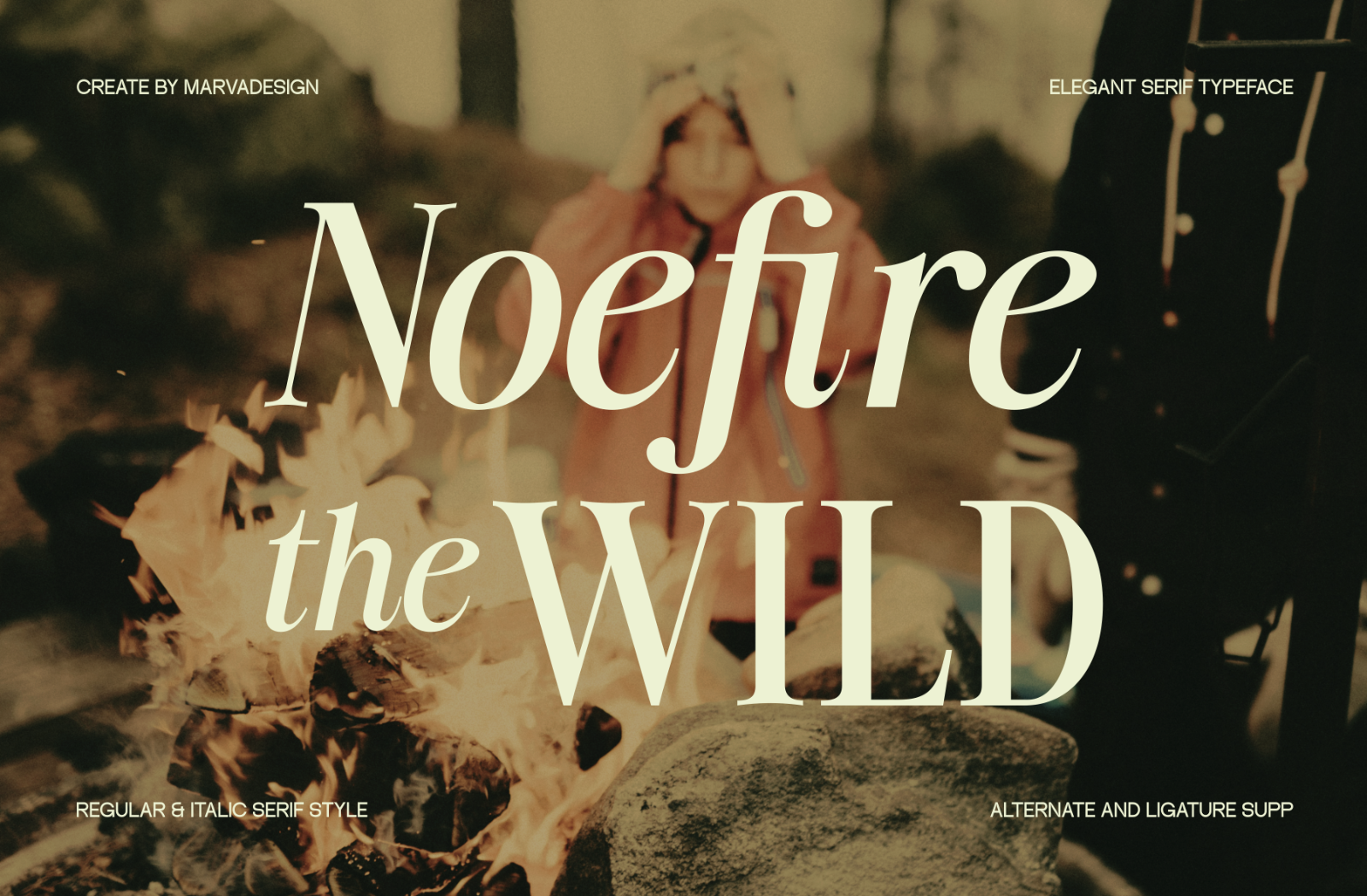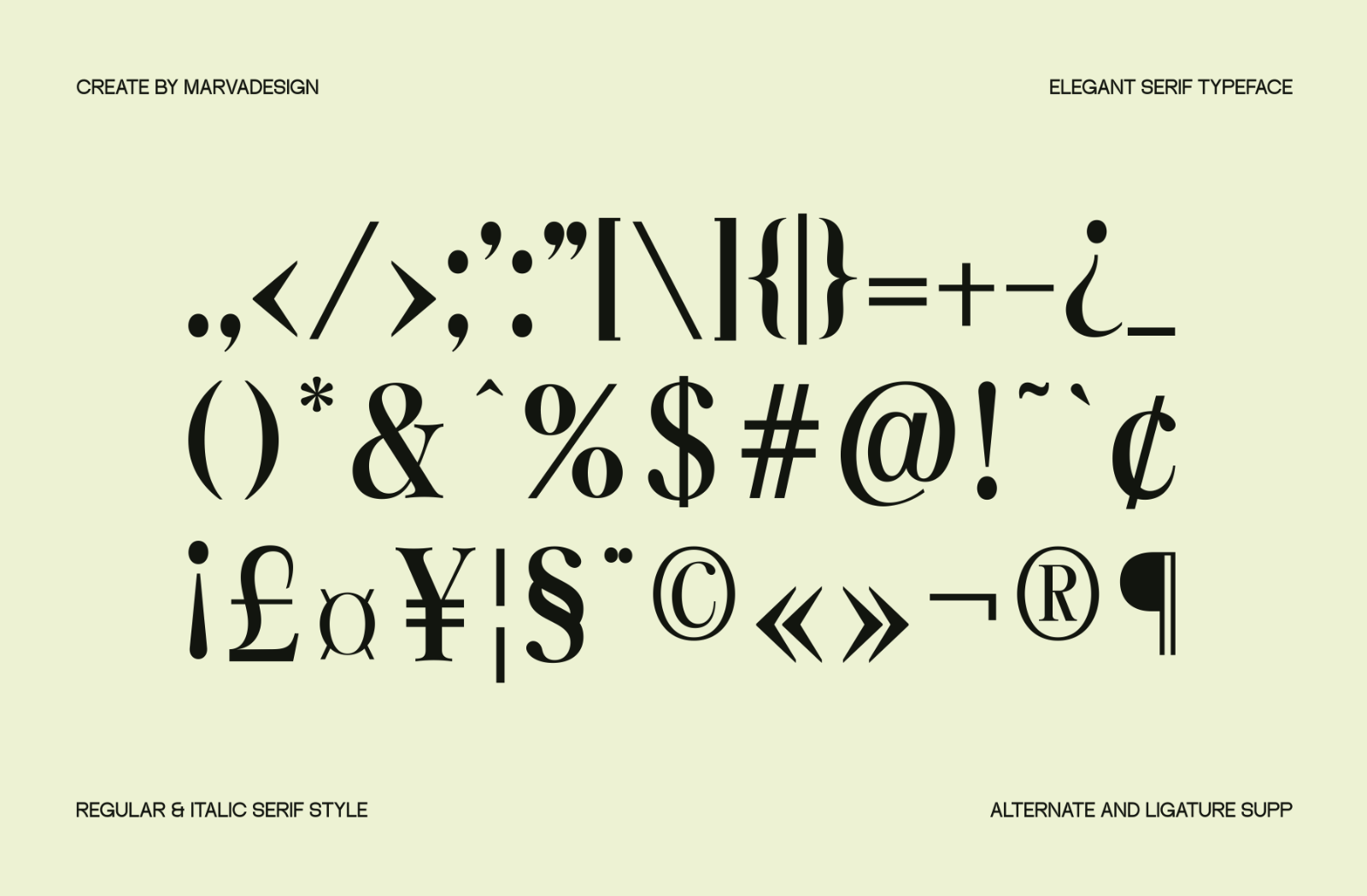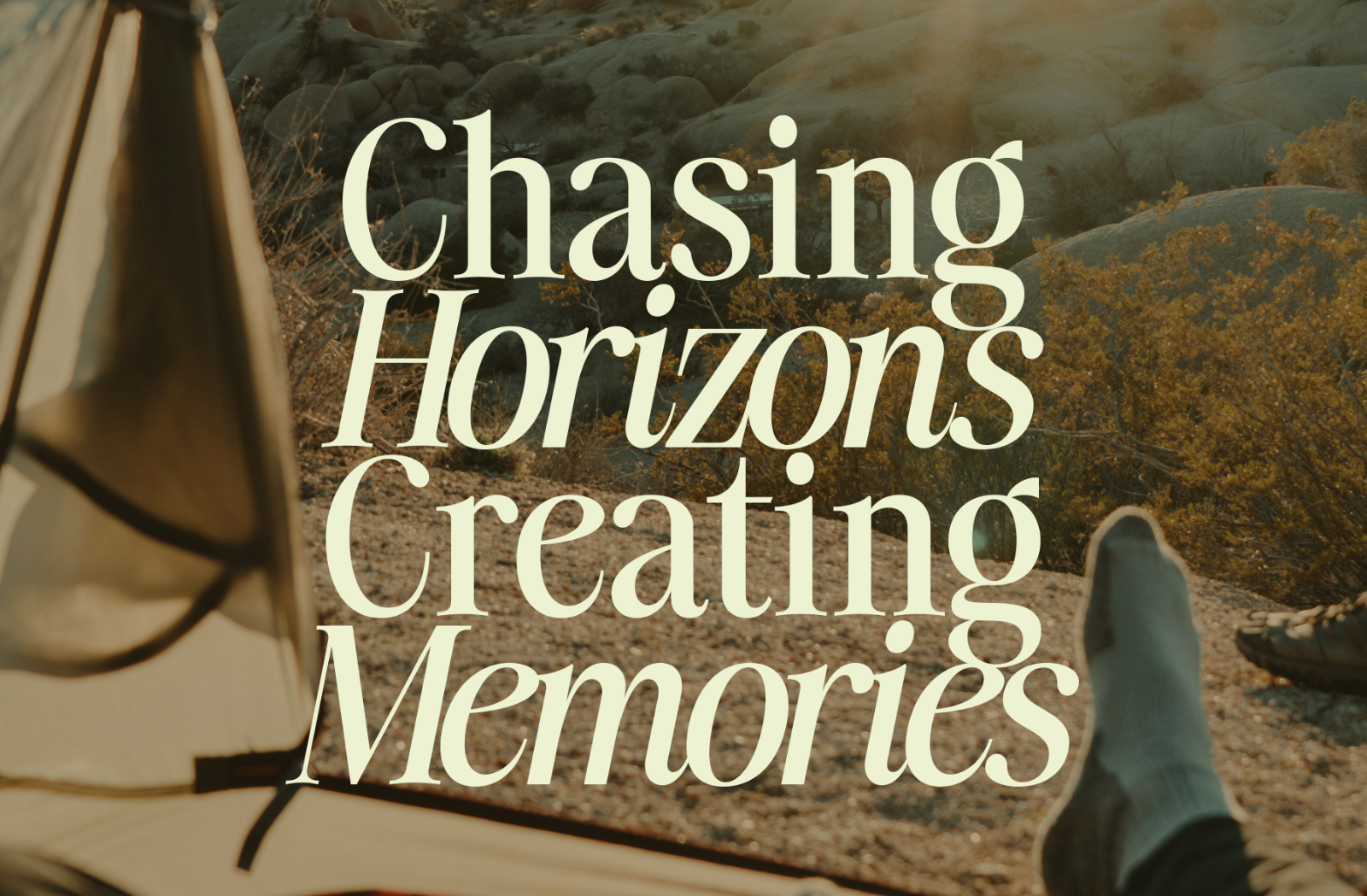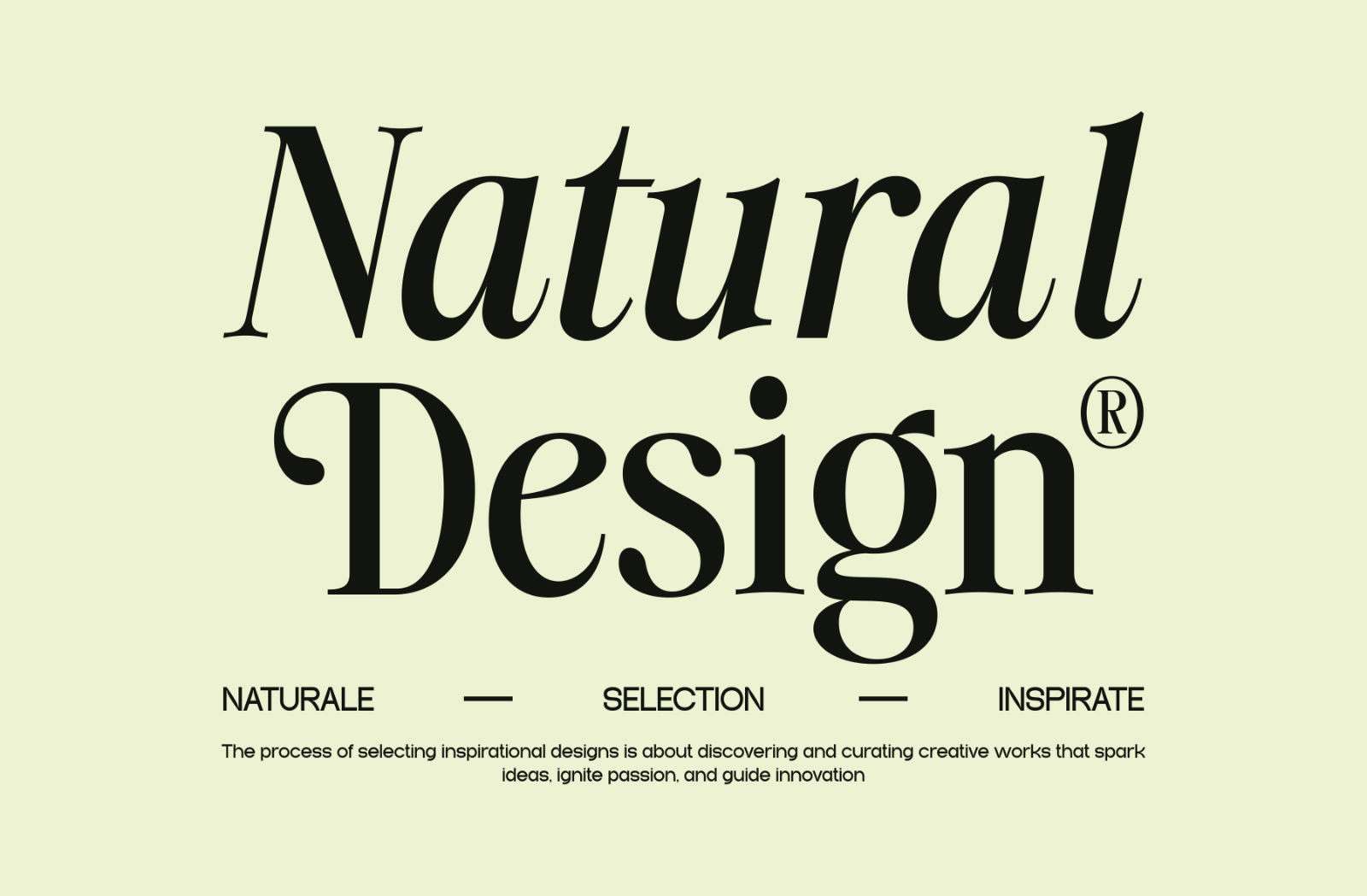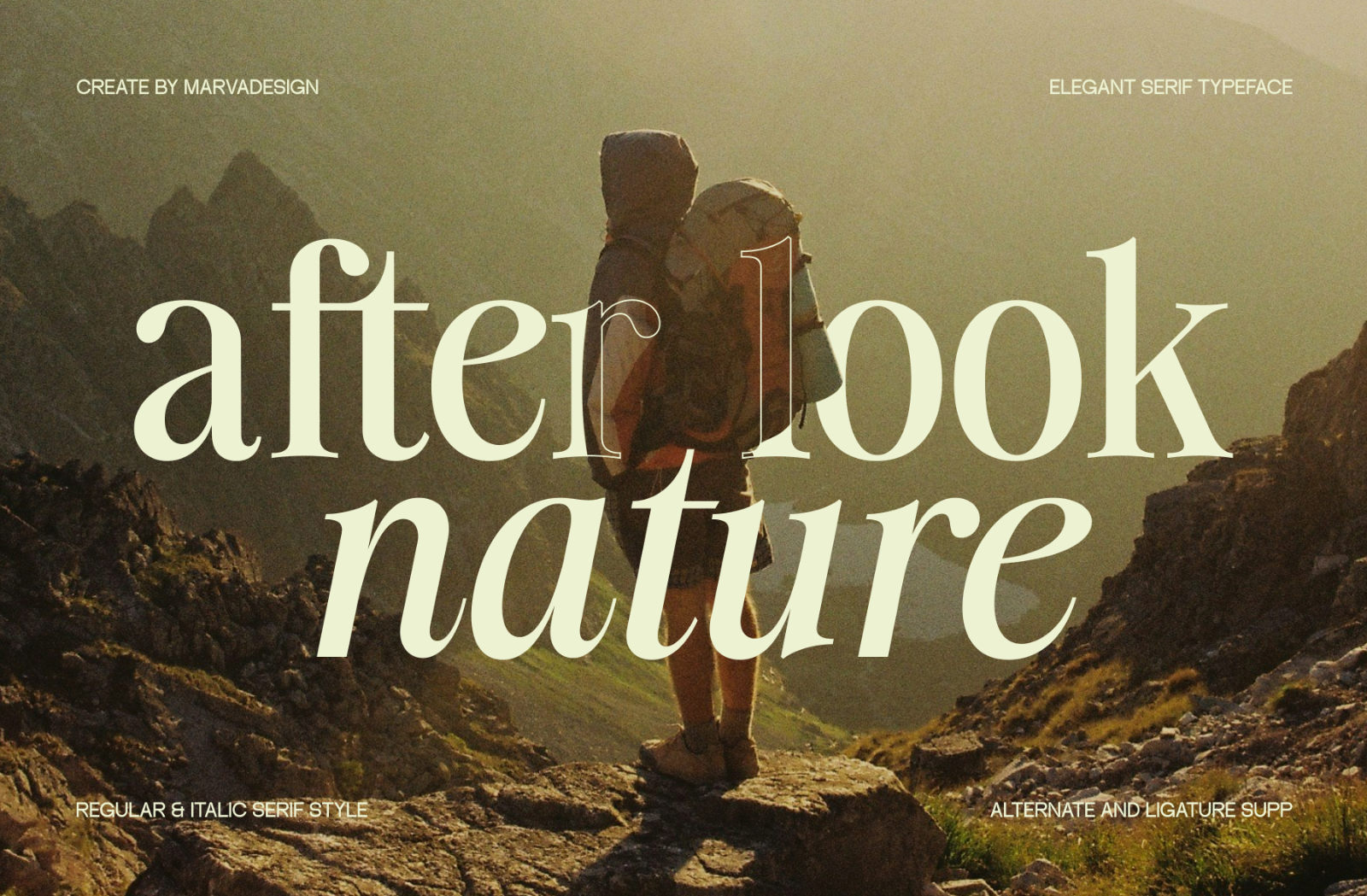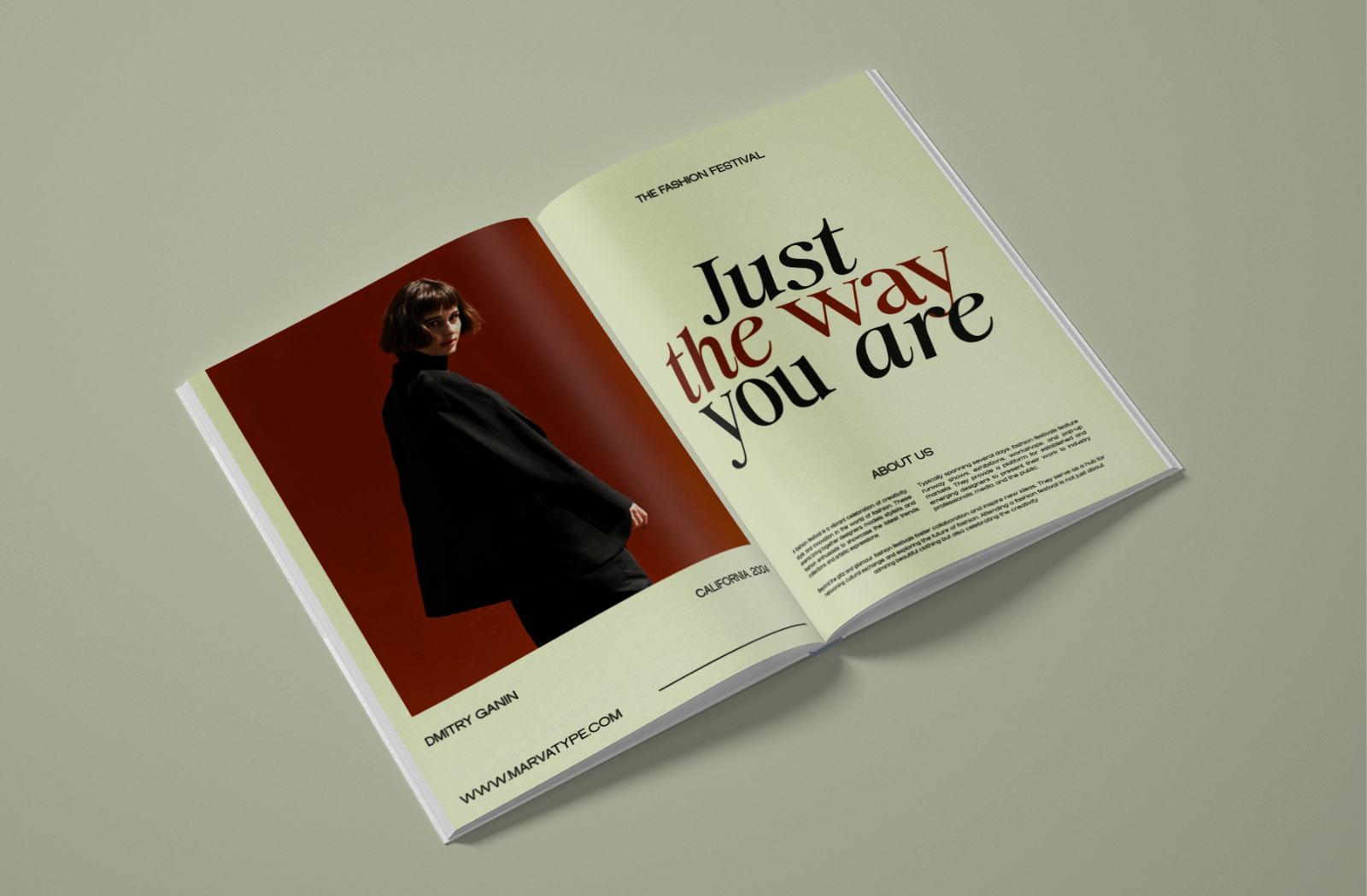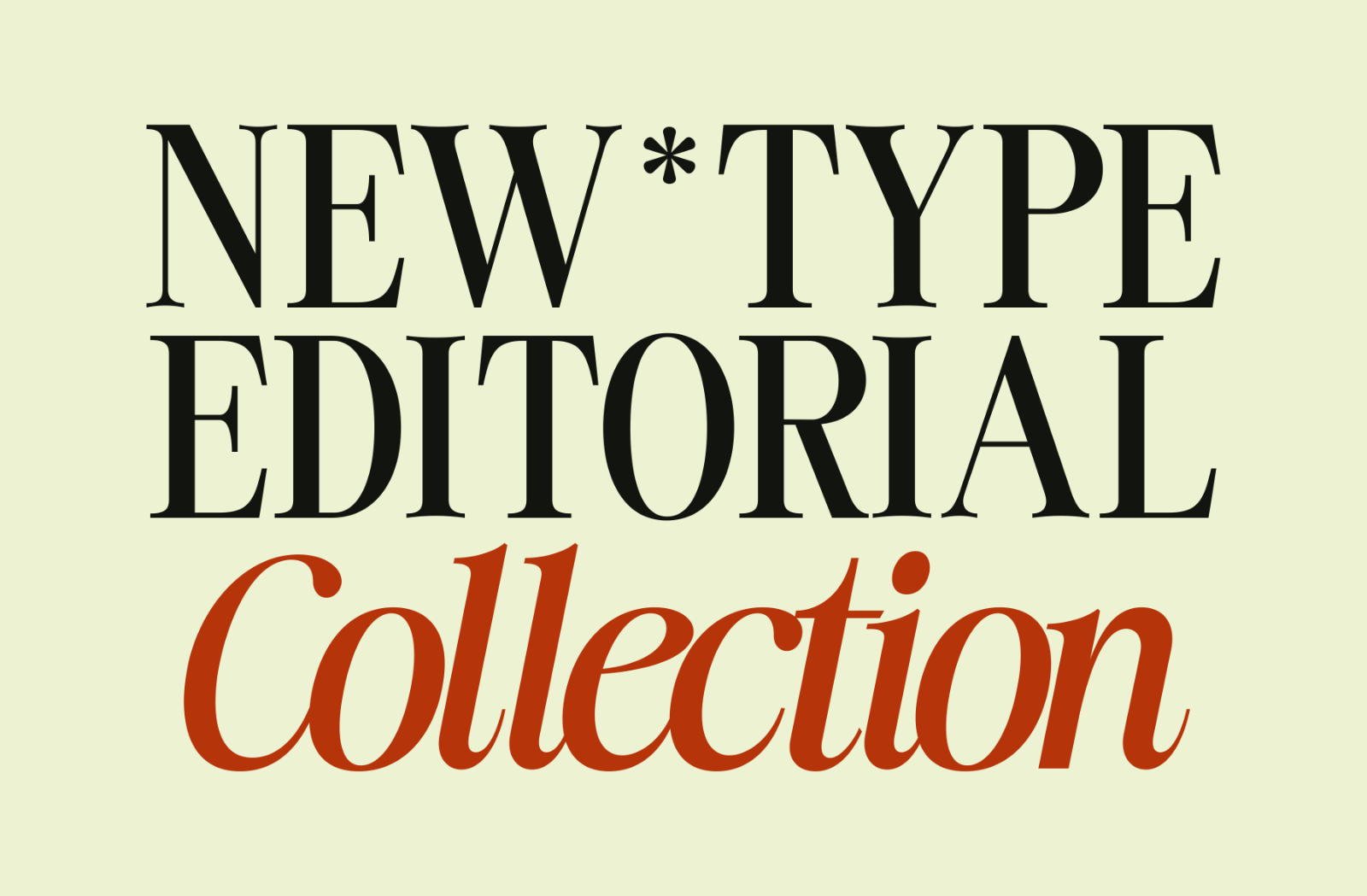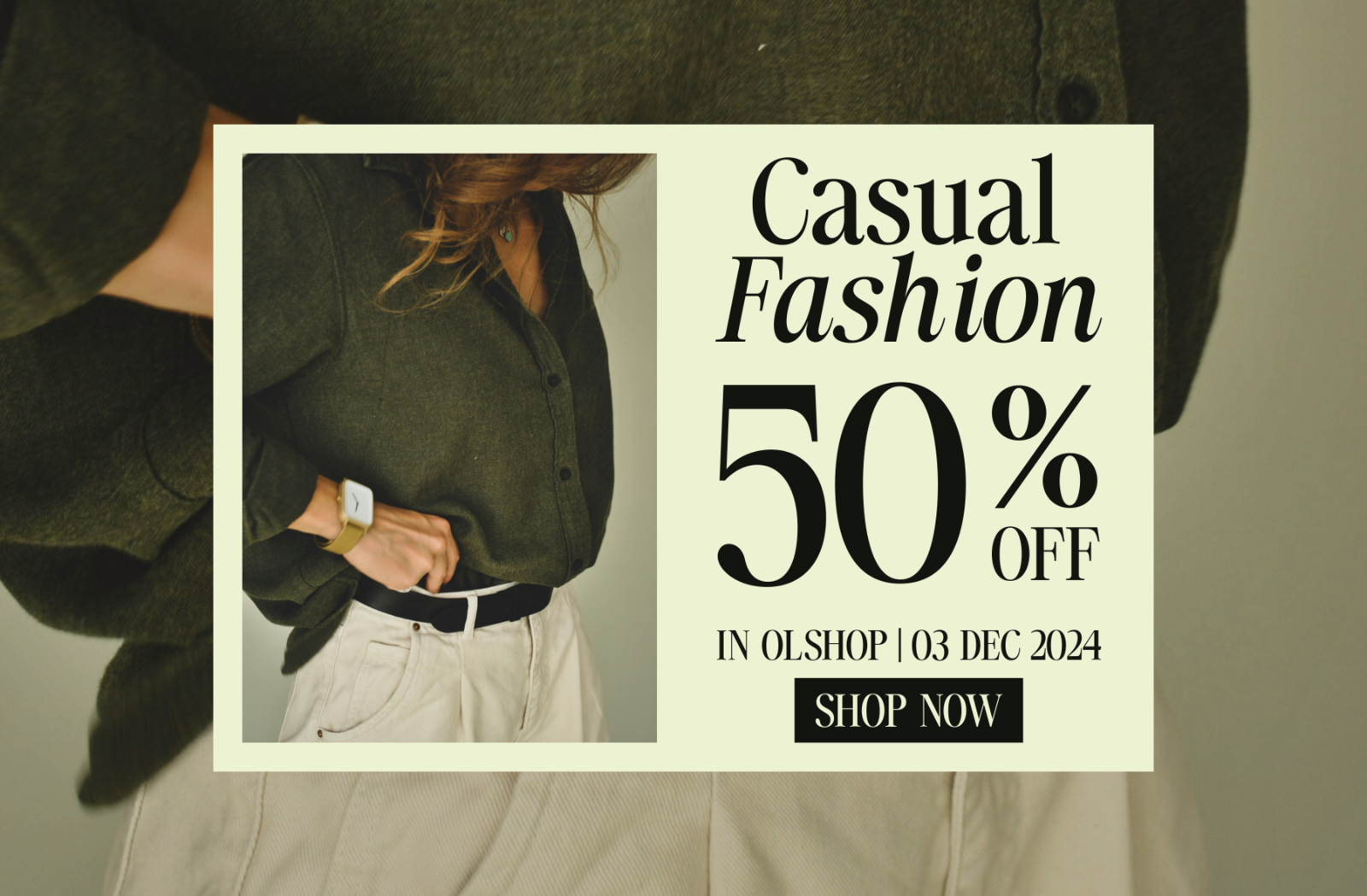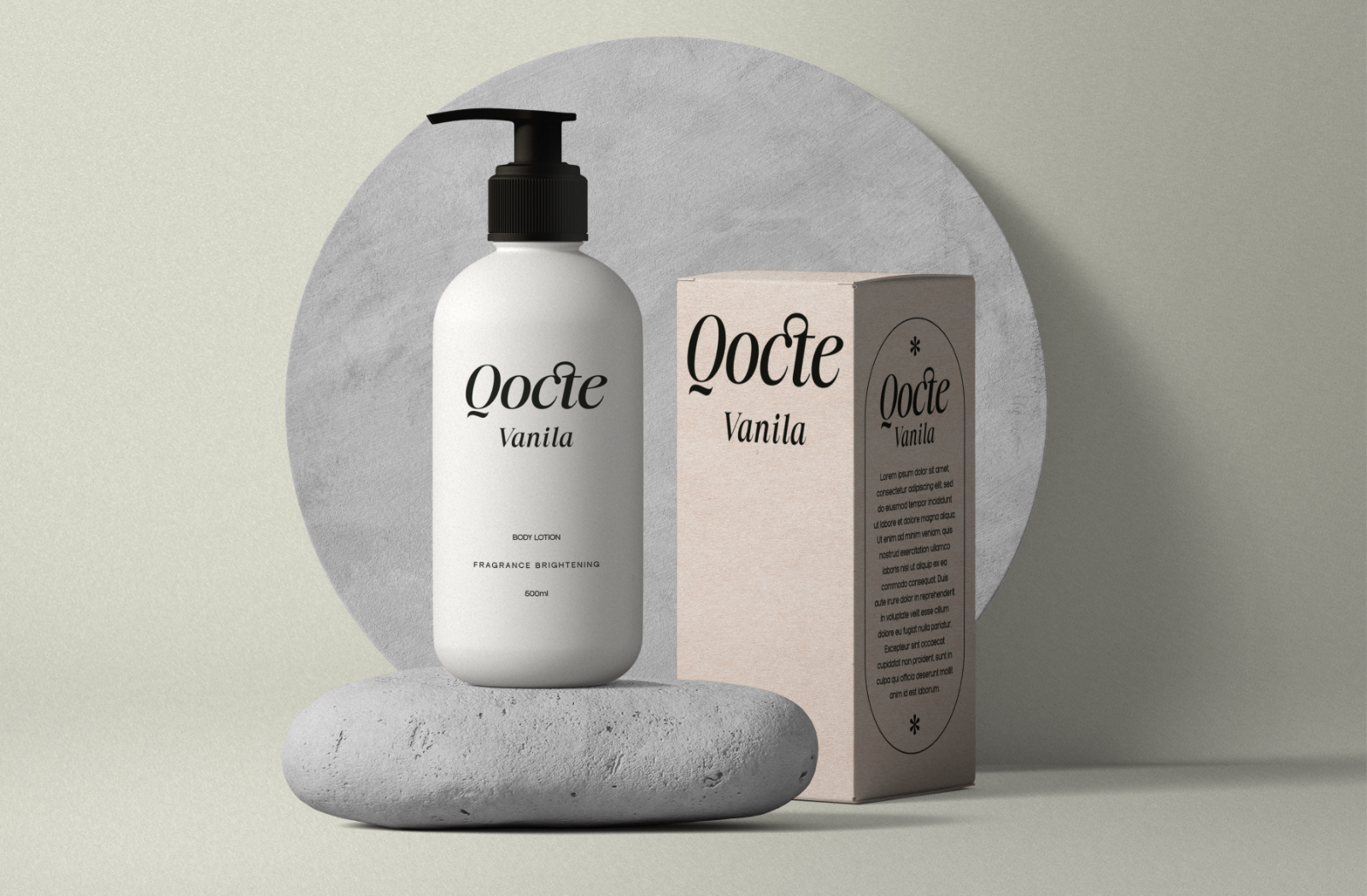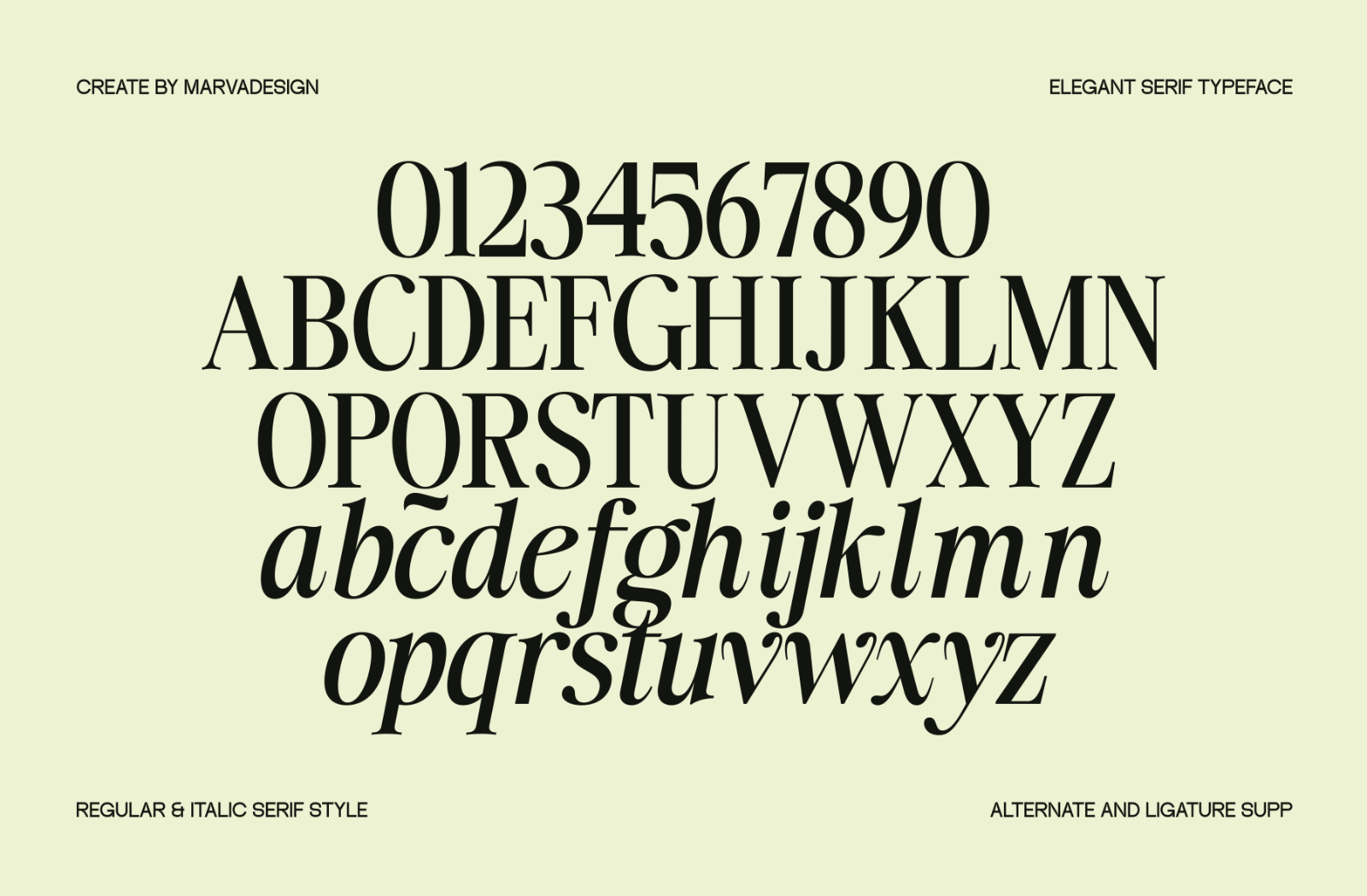
Introducing Noefire is a sophisticated serif font that seamlessly blends modern elegance with a touch of classic charm. Available in both regular and italic styles, its italic version leans into a semi-script aesthetic, adding fluidity and grace to its overall design. The clean lines and refined details of Noefire make it a versatile choice, suitable for a wide range of applications. Whether used for branding, product packaging, posters, magazines, or digital content, this font exudes professionalism and style. Noefire’s timeless appeal lies in its ability to elevate any project, making it an excellent option for designers seeking a balance between modernity and sophistication.